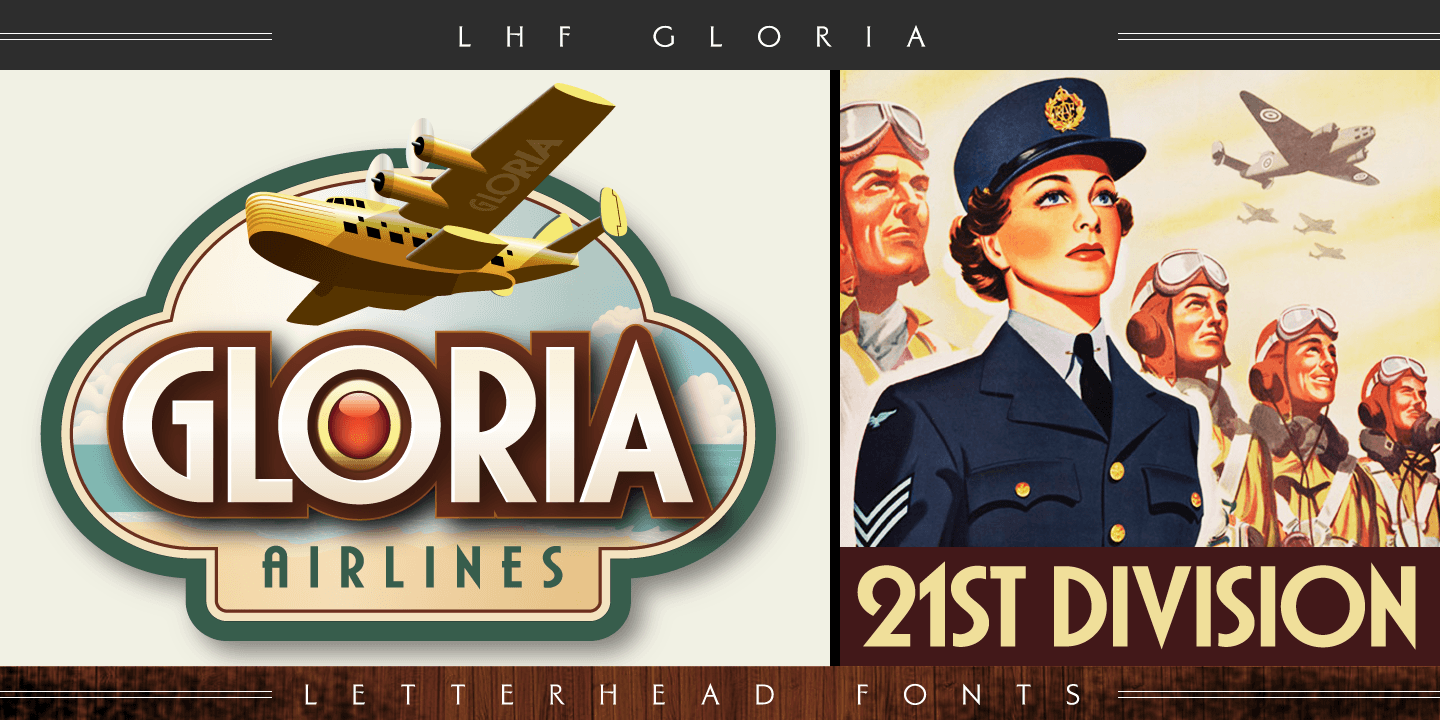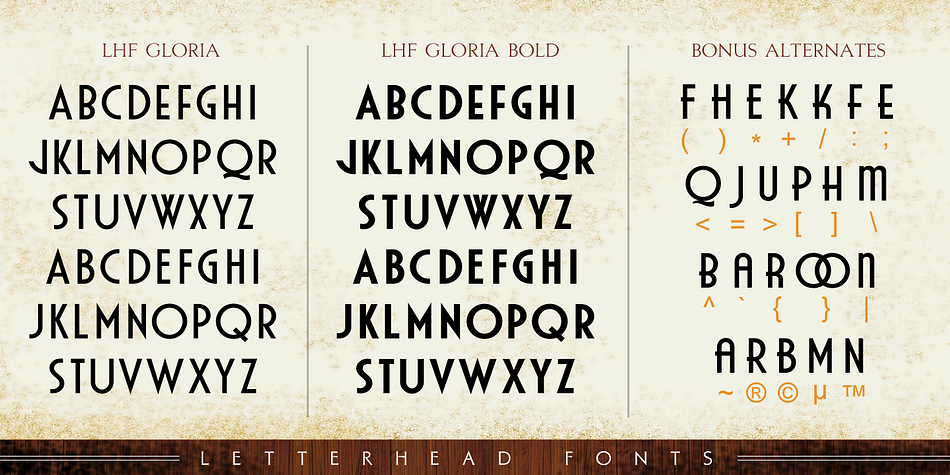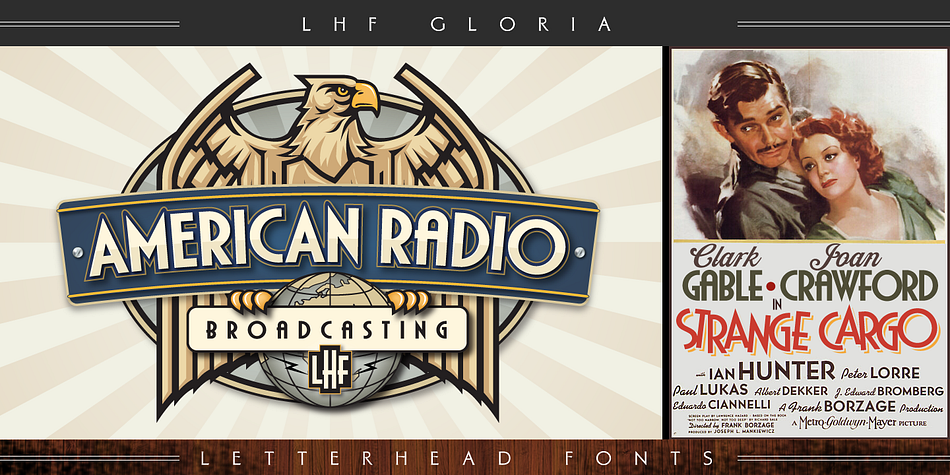
Designed by Charles Borges de Oliveira, LHF Gloria is a sans serif and art deco font family. This typeface has two styles and was published by Letterhead Fonts.
Art deco period style inspired by old movie and travel posters. Includes Regular and Bold versions. Each font features 23 alternate characters for the ability to customize the fonts to fit your needs.